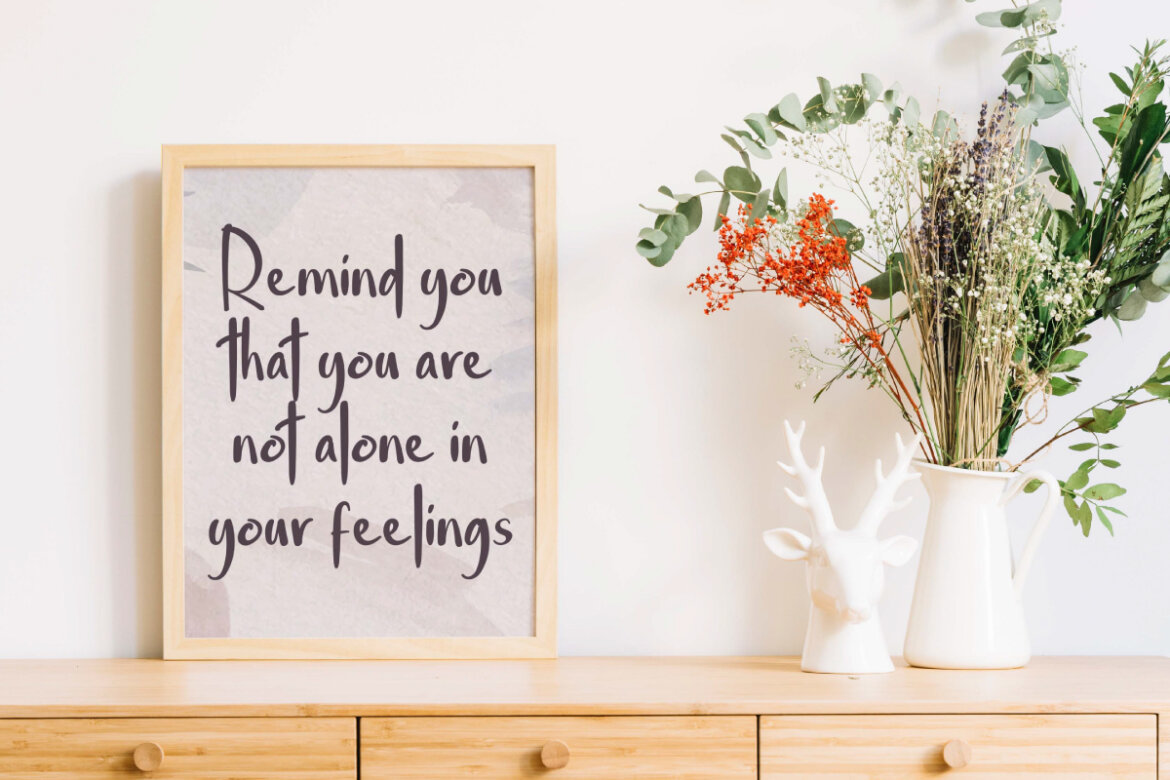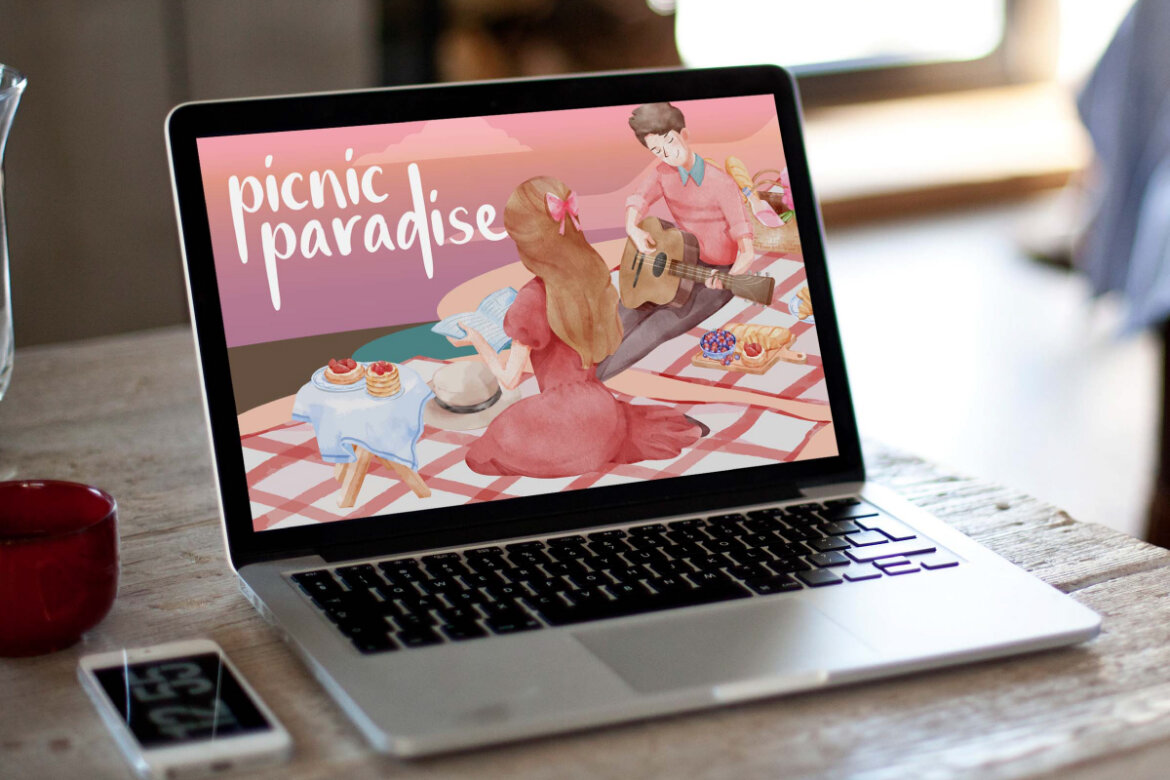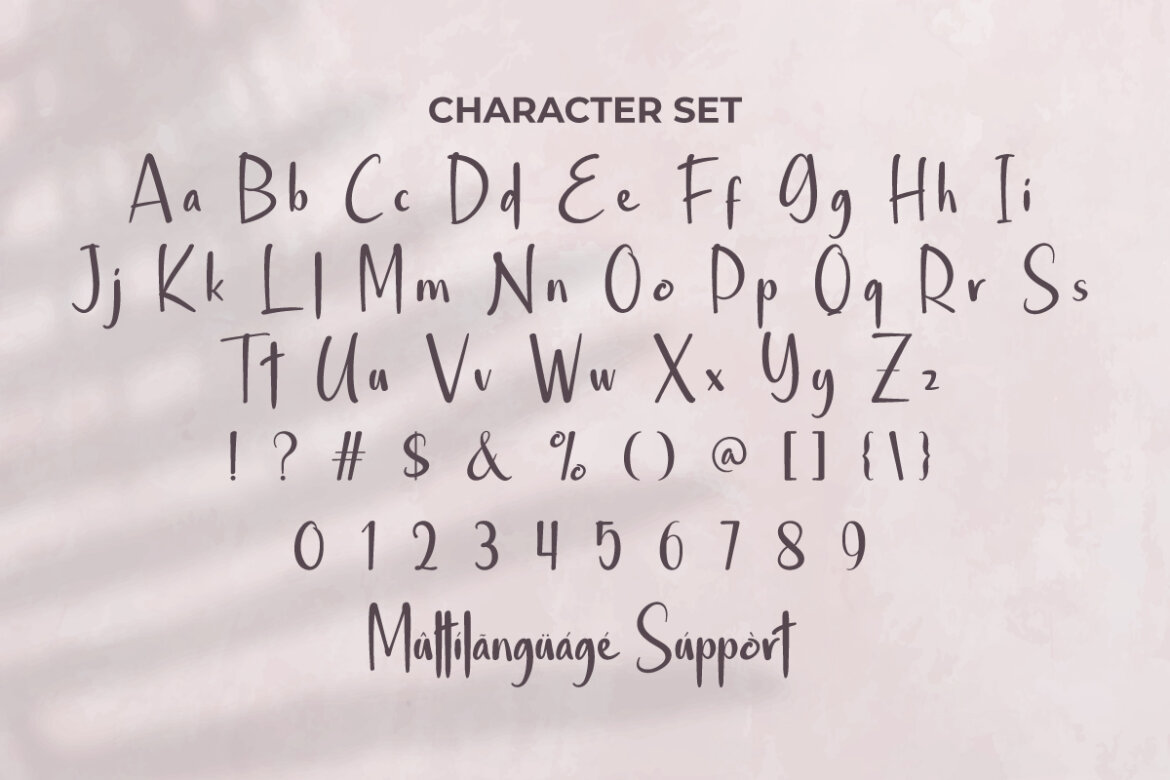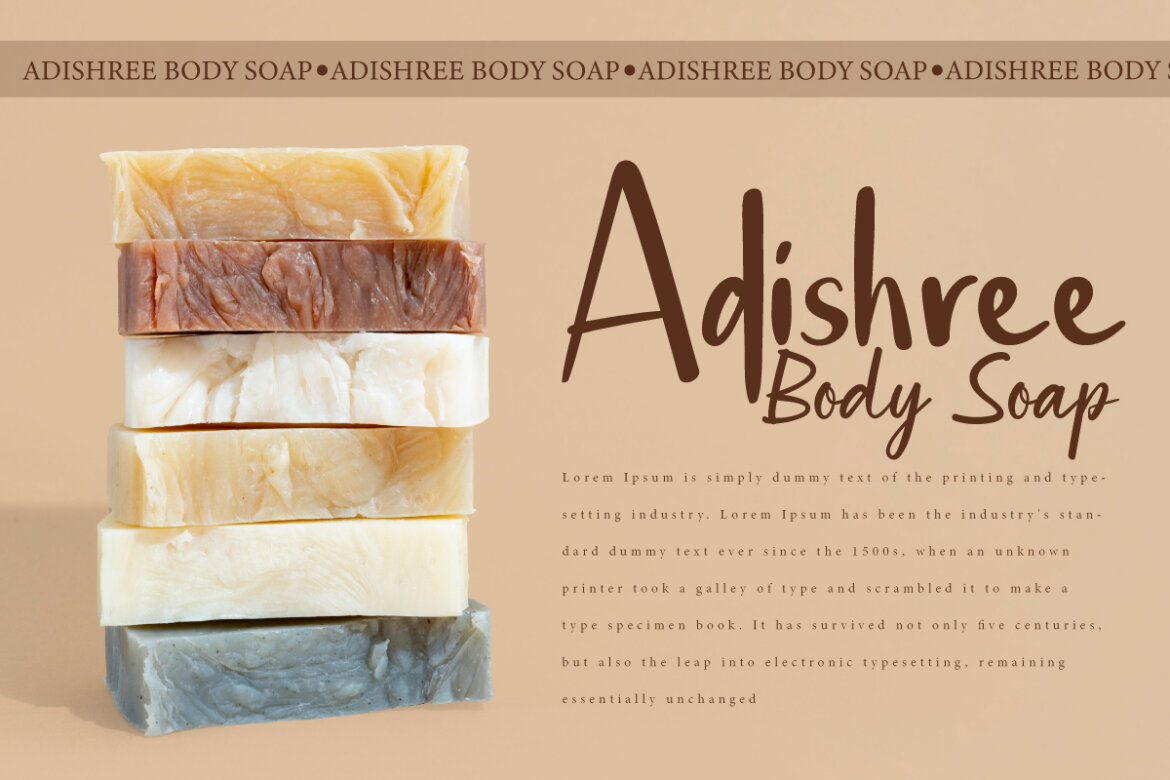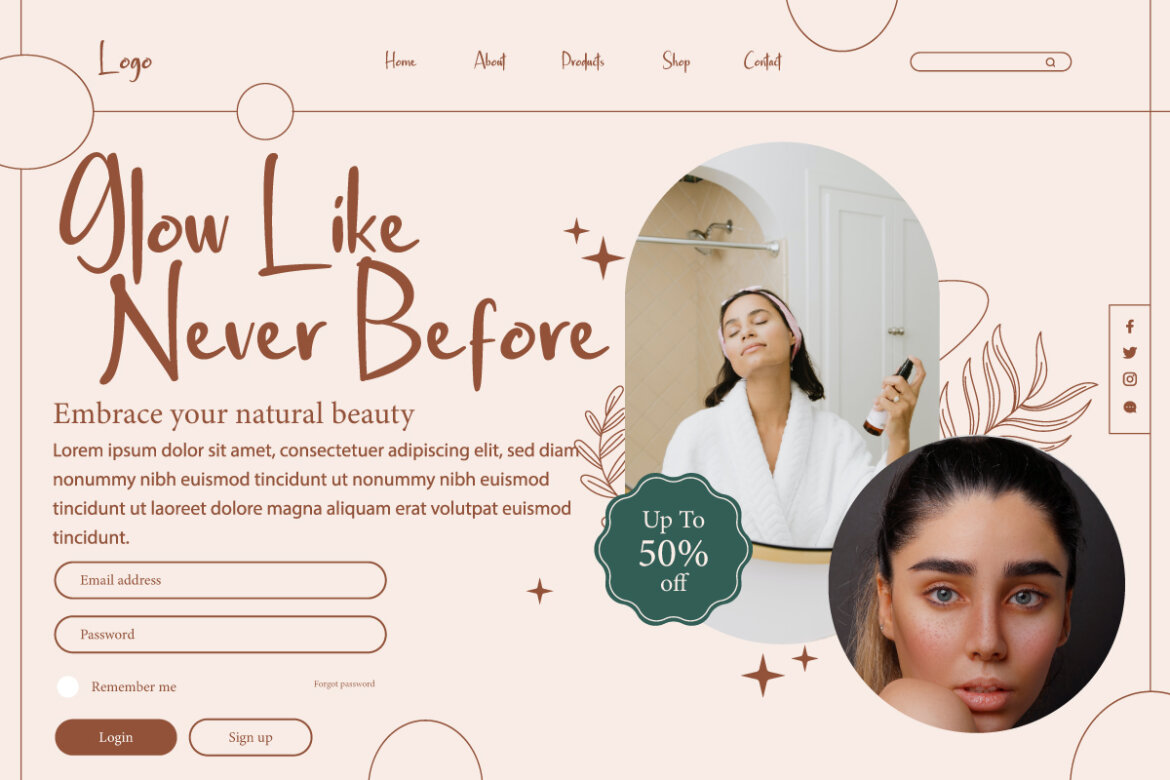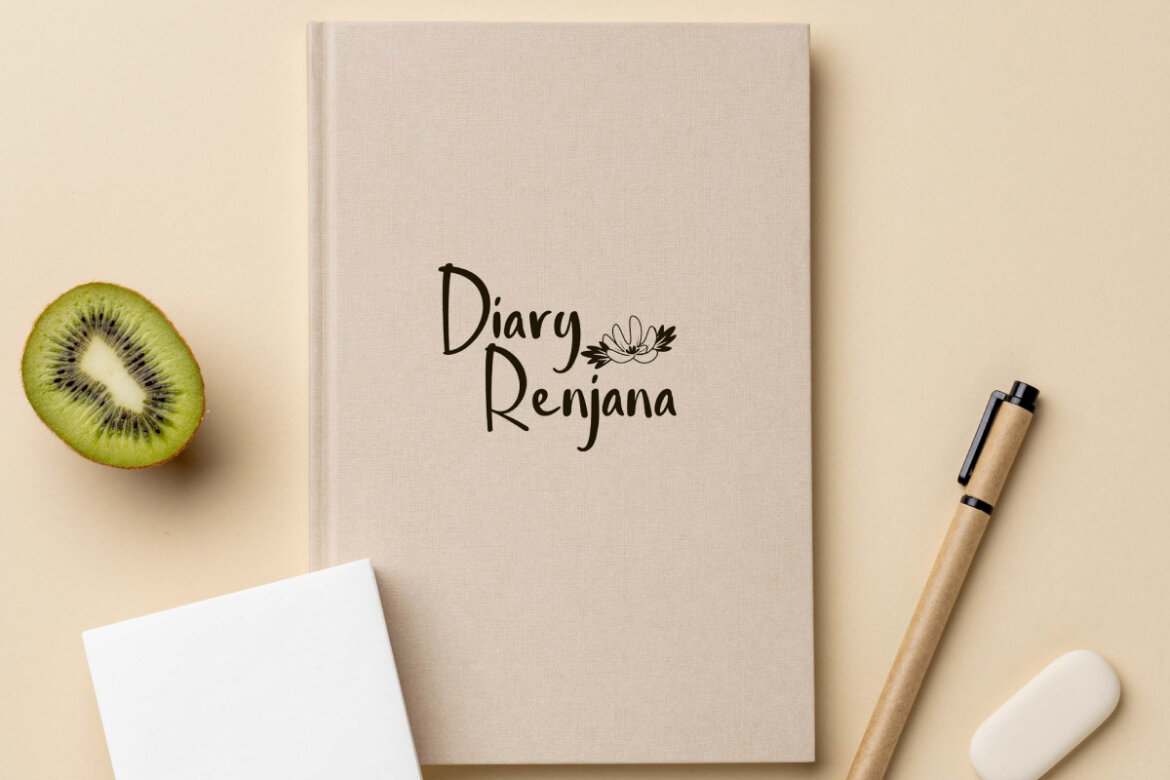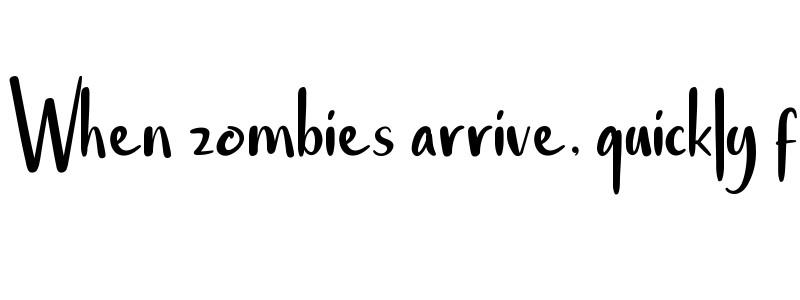
Not For You Font is a casual handwriting display font that is made with simple handcrafted brush stroke. This font is here to help you make your digital designs more beautiful and feel authentically handmade. It can be used for app view, blogs, brand identity, business cards, cover, custom mockup, greeting cards, headers, headline, invitation, print on fabrics, quotes, stationery, template design, title, website, and others.
Not For You Font can make your product look natural and attractive. It can be used to create anything you want and is easily adaptable to various design needs. This font captures the essence of natural handwriting to give an organic feel. Useful for industries such as, apparel, cosmetic, dentist clinic, fashion, furniture, graphic design, handicraft, home decoration, natural soap maker, photography, printing, publishing, skincare, writer, and much more.
Not For You Font comes with a complete set of Uppercase and Lowercase Basic Characters, Number, a large range of Punctuation, and Symbol. It is supported with multilingual characters and ready to use both on Windows machine or Mac with simple installations. It’s tested to work well in the Adobe Apps (Illustrator, Adobe InDesign, Adobe Photoshop) CorelDraw, and others. PUA Encode Characters means you can access all the characters easily – Fully accessible without additional design software.